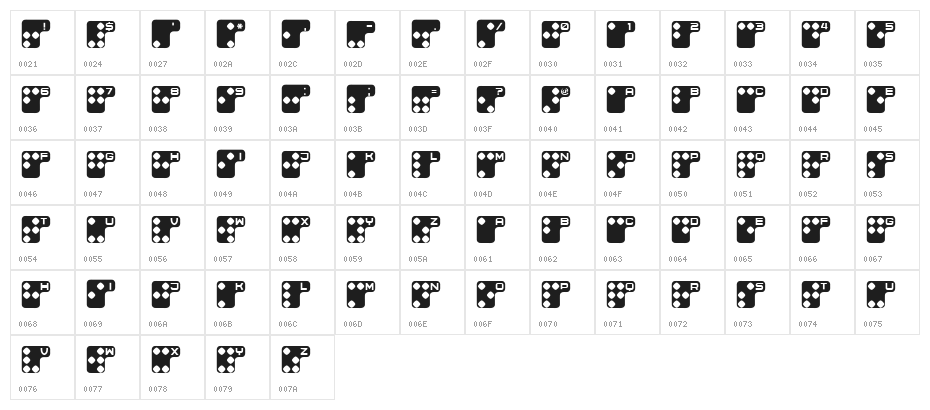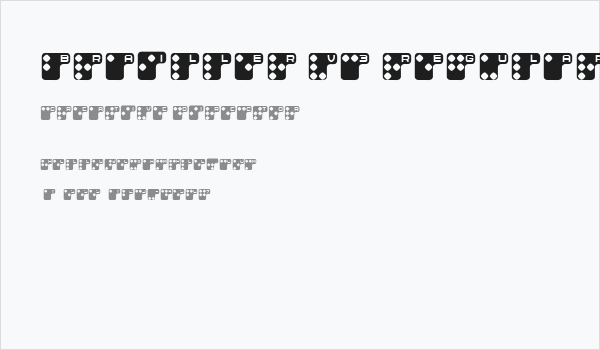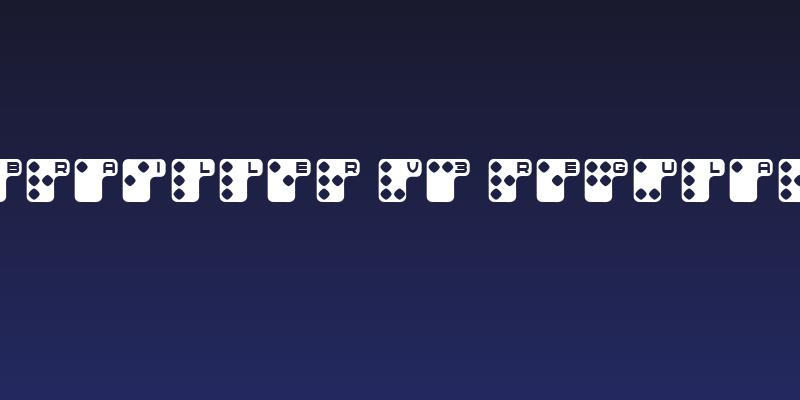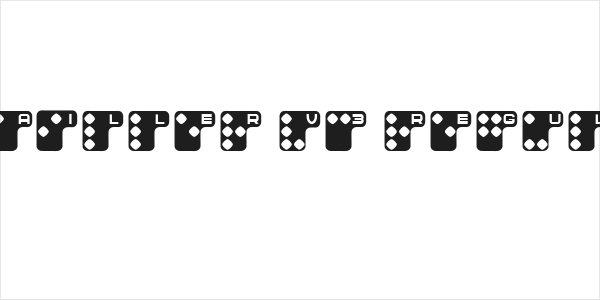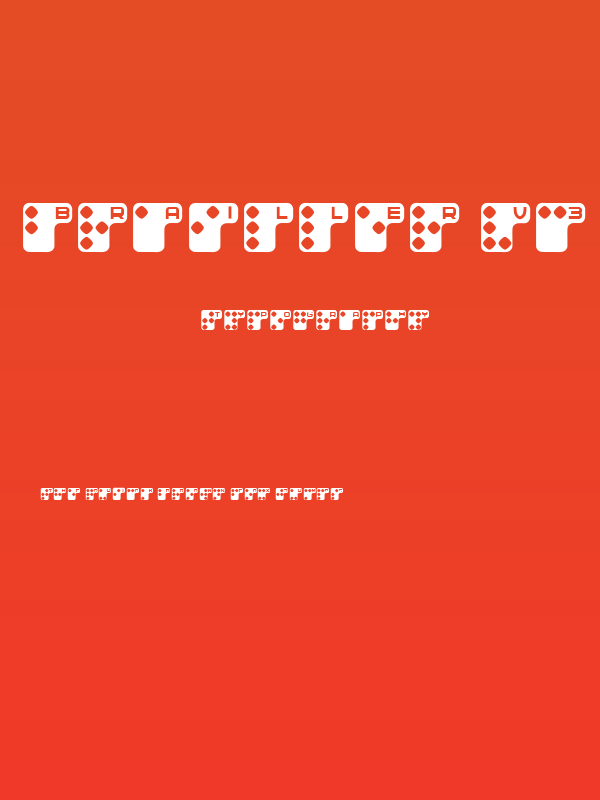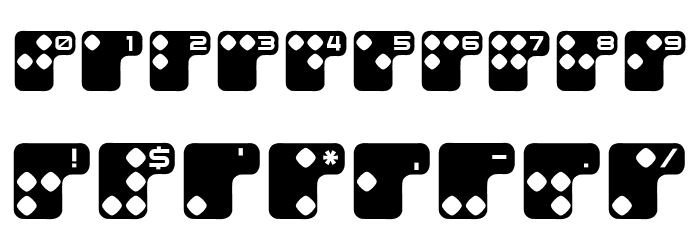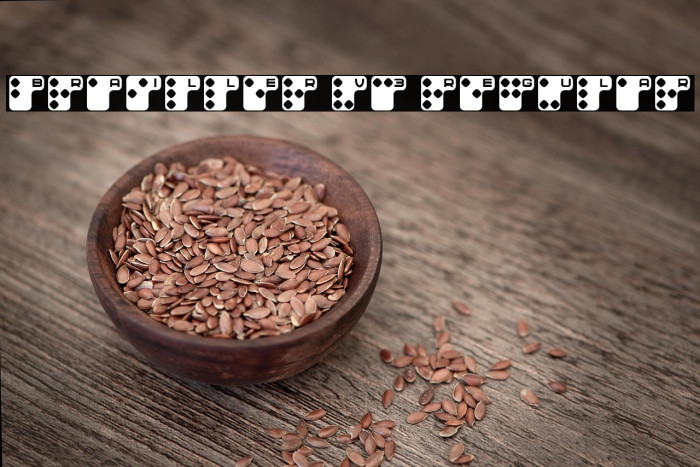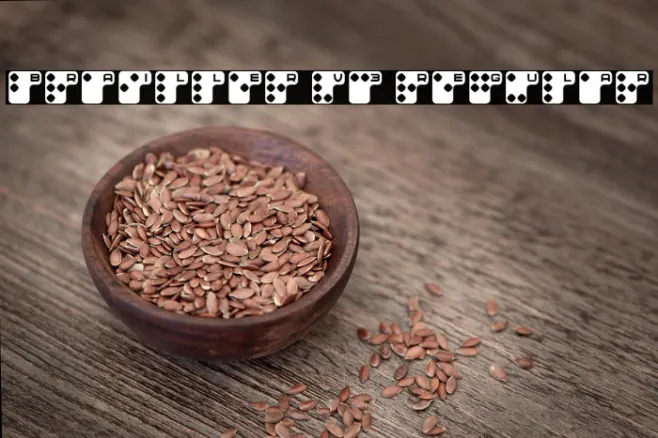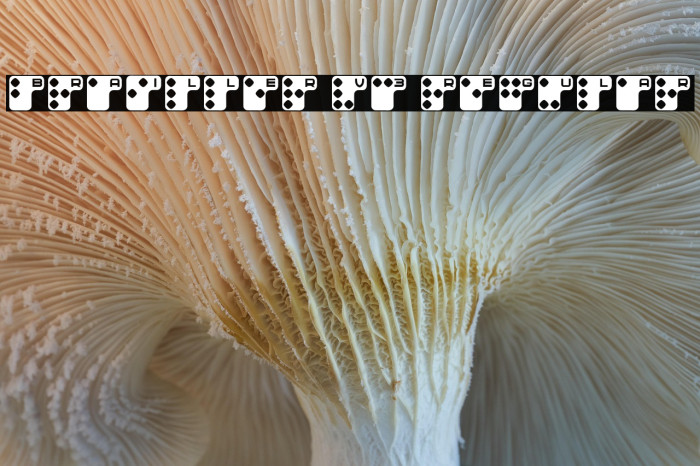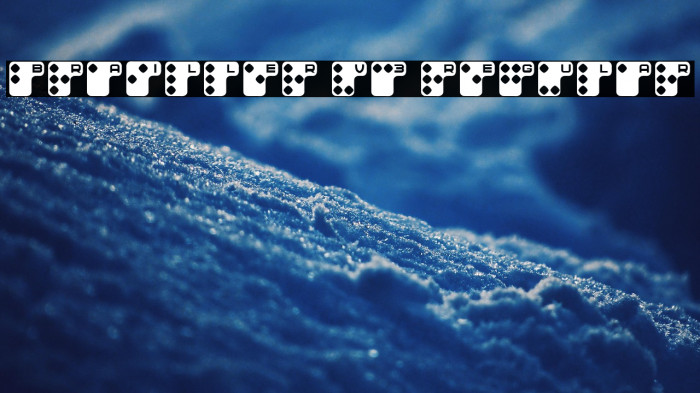
Brailler V3 Regular Font
Brailler V3 Regular Description
This font is a unique and innovative design inspired by Braille, featuring a series of dots arranged in a grid pattern within each character. The characters are bold and blocky, with a high contrast between the black background and the white dots, making them stand out prominently. The font is highly stylized, with each letter and number represented by a distinct combination of dots, resembling the tactile writing system used by visually impaired individuals. The special characters also follow this pattern, maintaining consistency across the entire set. This design is both functional and visually striking, offering a modern take on traditional Braille symbols.
| Use Case | Logos, Educational materials, Accessibility designs |
| Proposed Projects | Ideal for educational materials, accessibility-focused designs, and creative projects that require a Braille aesthetic. |